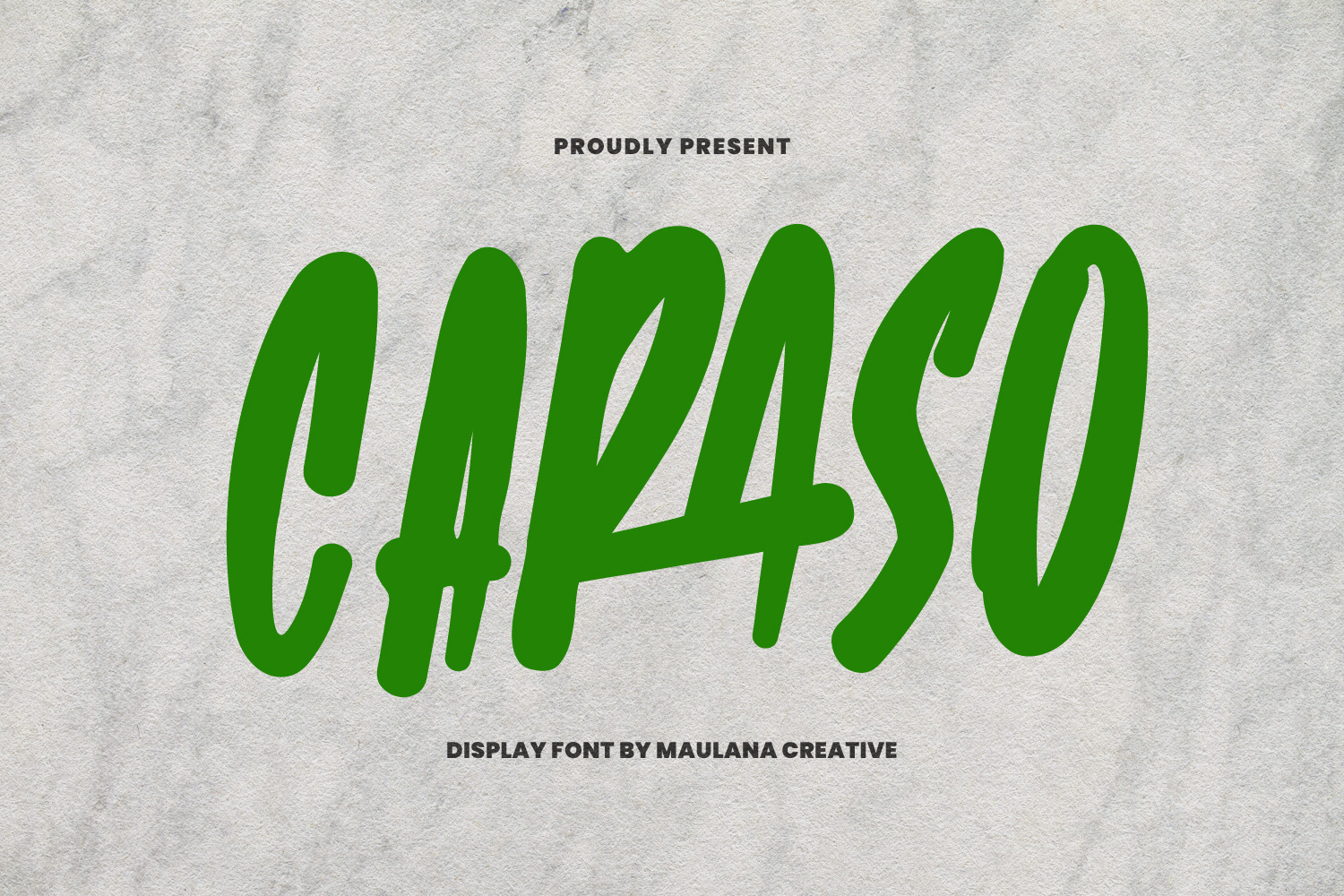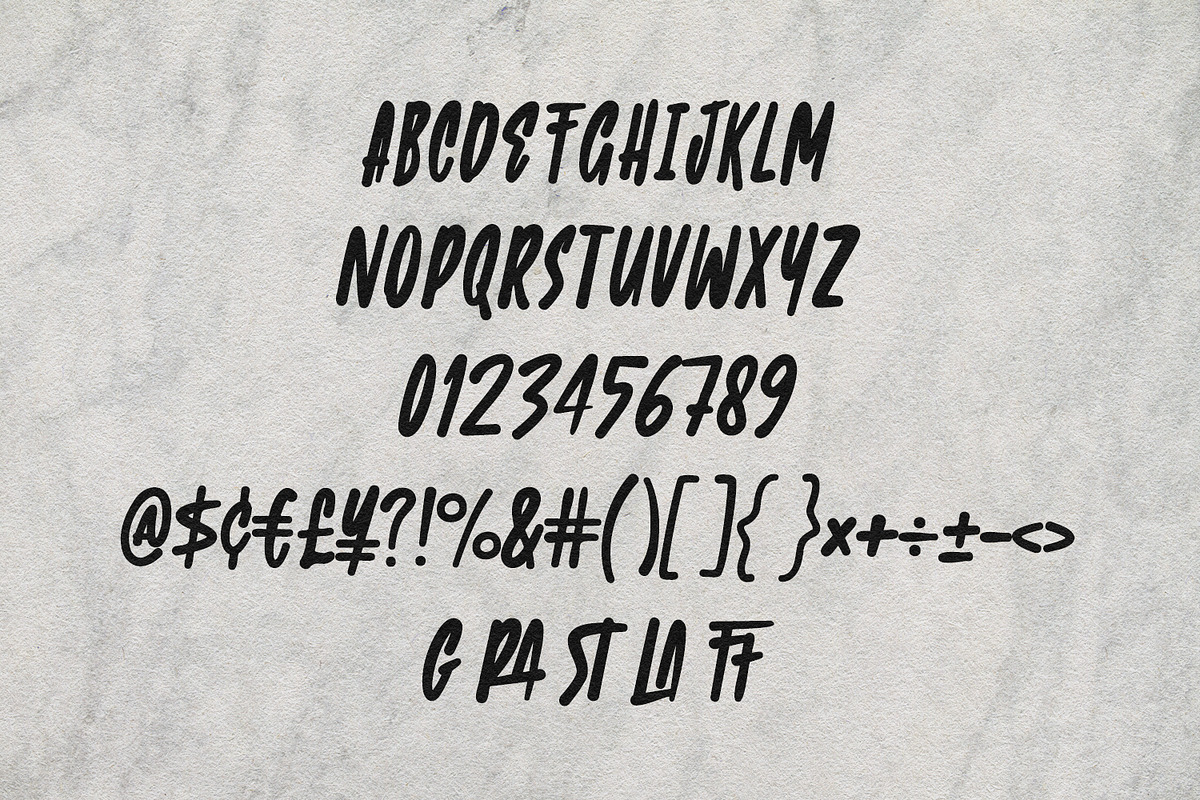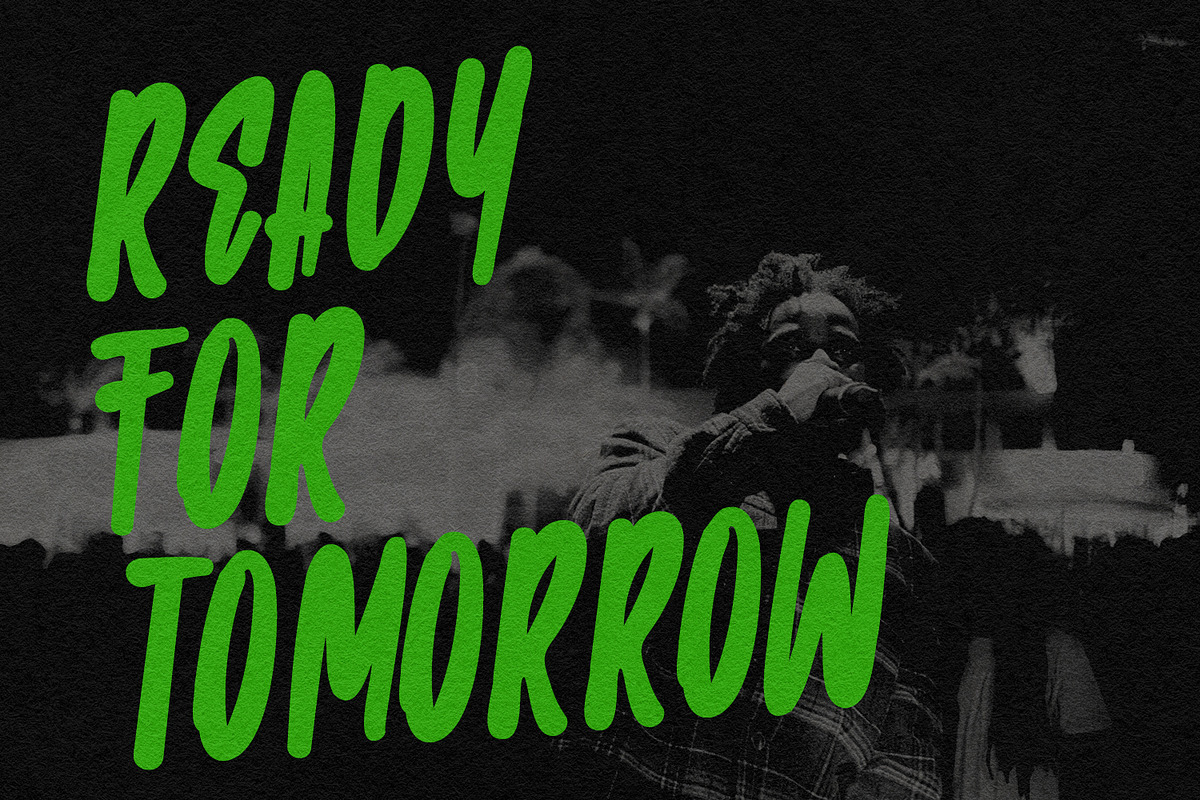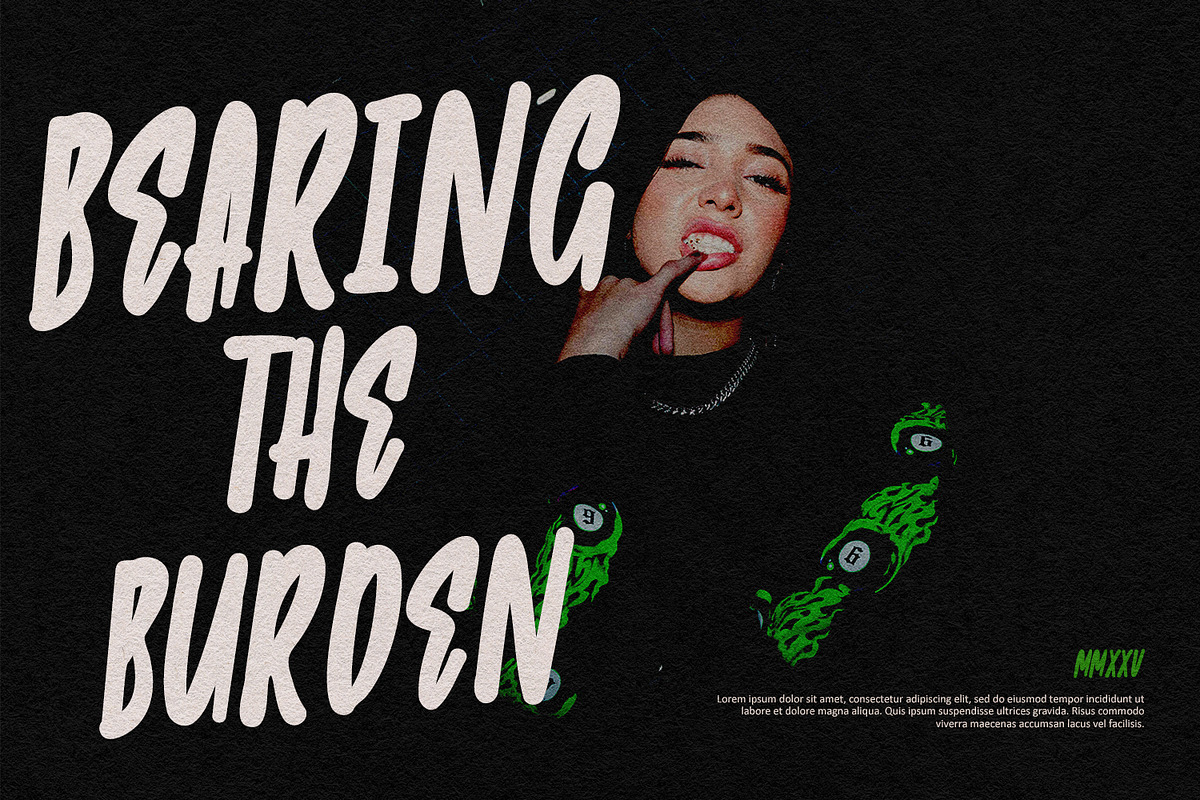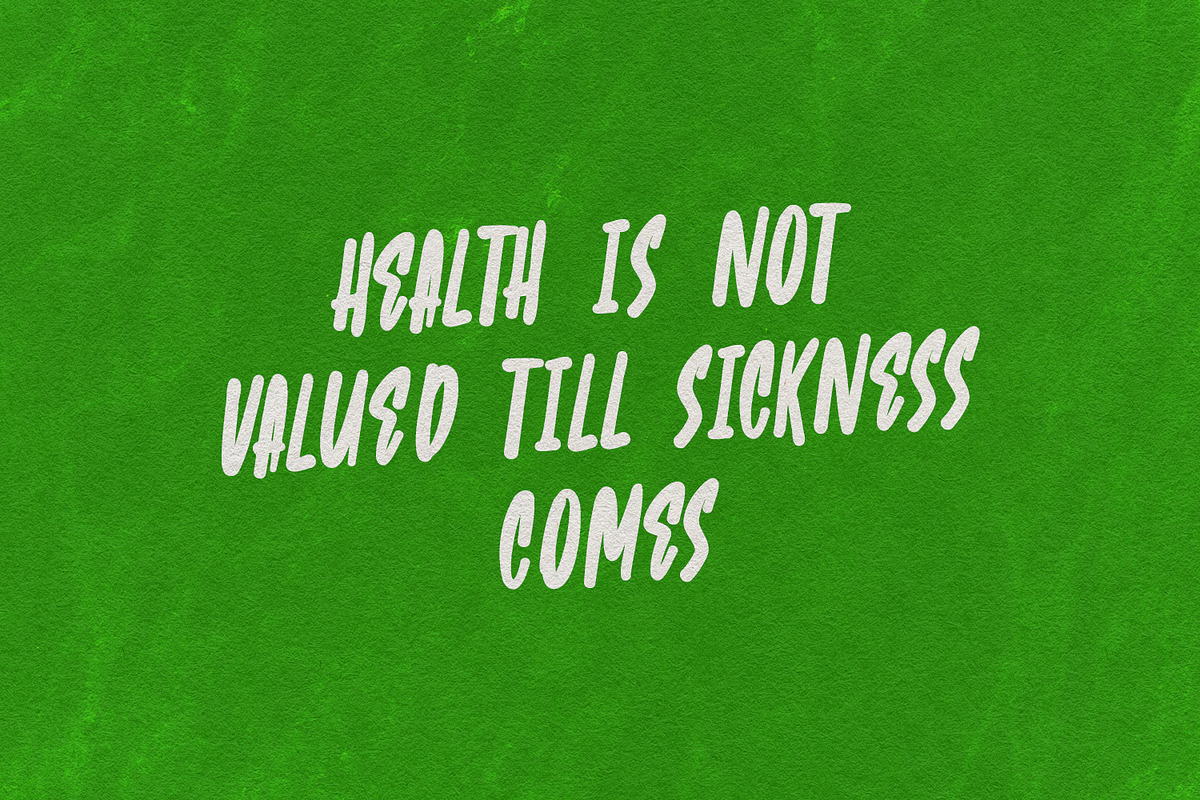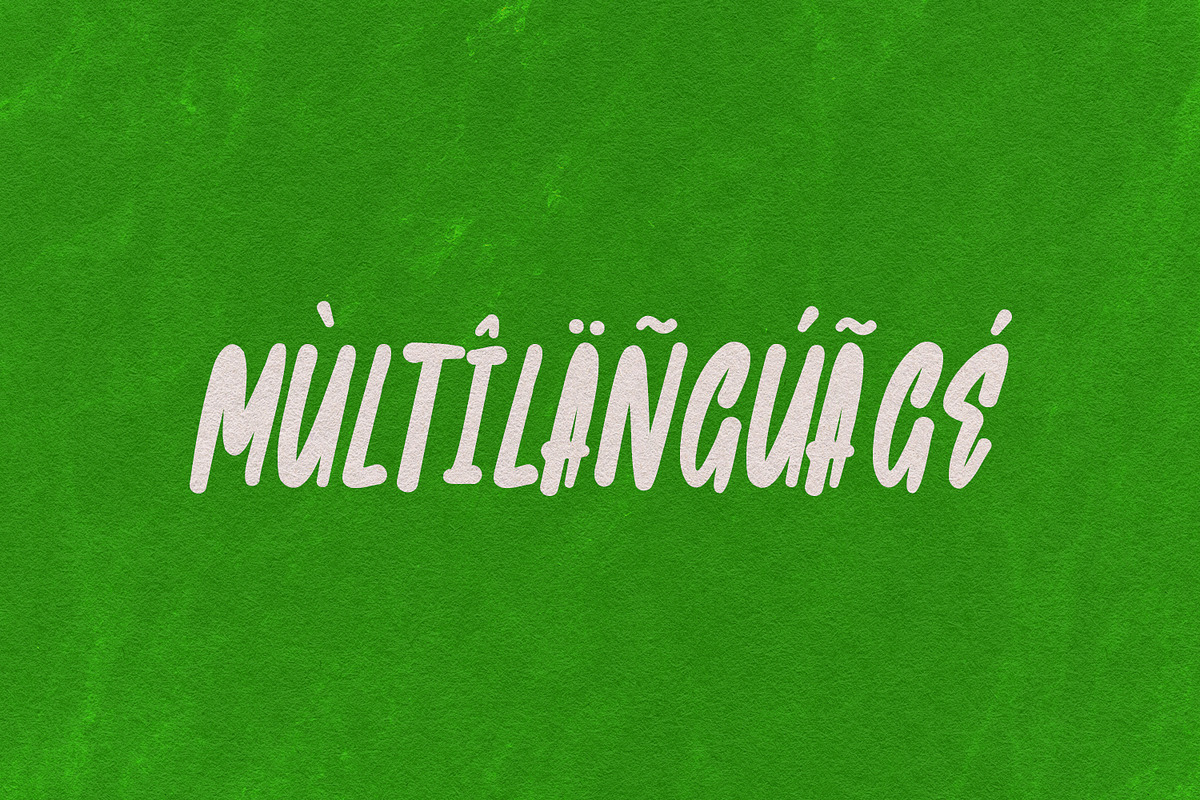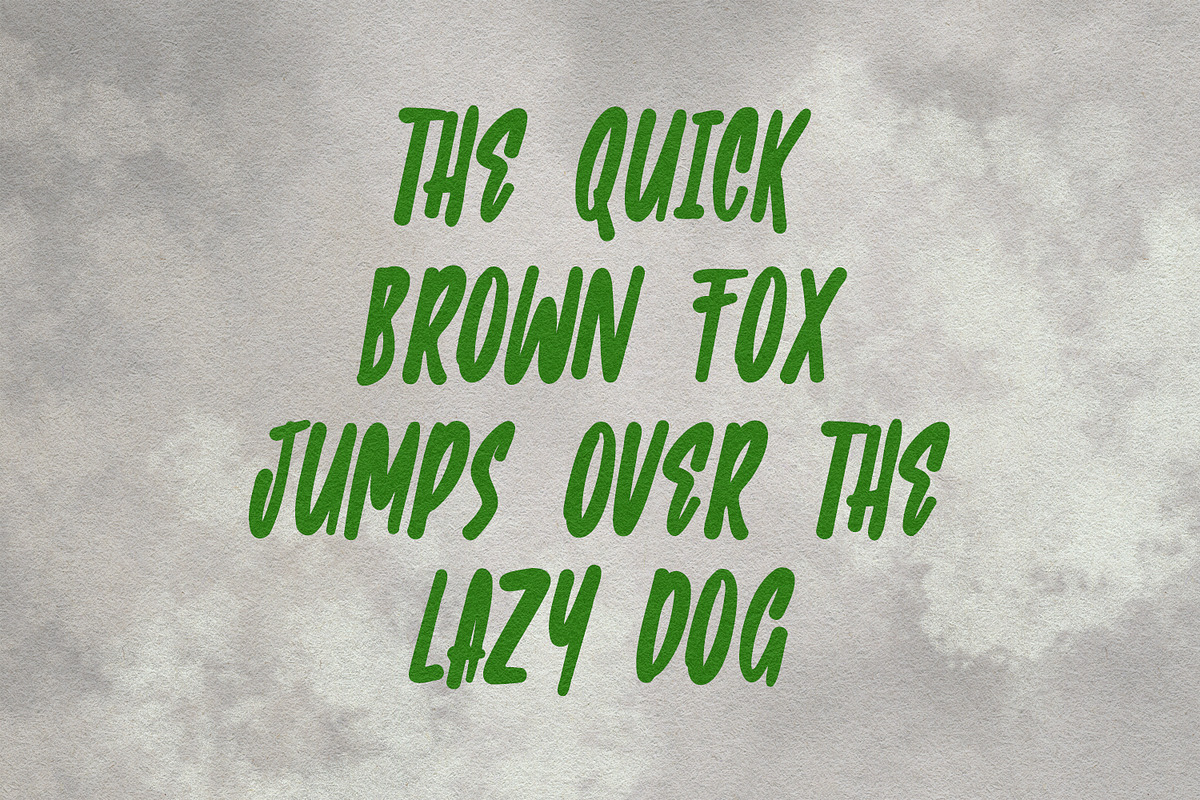
Caraso Bold Energetic Display Font
Caraso is a bold and energetic display font designed to bring attitude, confidence, and personality to your creative projects. With its hand-brushed strokes, dynamic flow, and modern street-style character, this font is perfect for headlines, posters, branding, apparel, music covers, and social media graphics. Its unique design blends urban vibes with artistic flair, making your text stand out with a bold statement.
Caraso also supports multilingual characters, numbers, punctuation, and special ligatures, ensuring versatility for global use. Whether you’re creating a motivational quote, album cover, sports branding, or promotional campaign, Caraso delivers power and creativity in every letter.
Bring your designs to life with Caraso – the font that speaks loud, bold, and stylish.